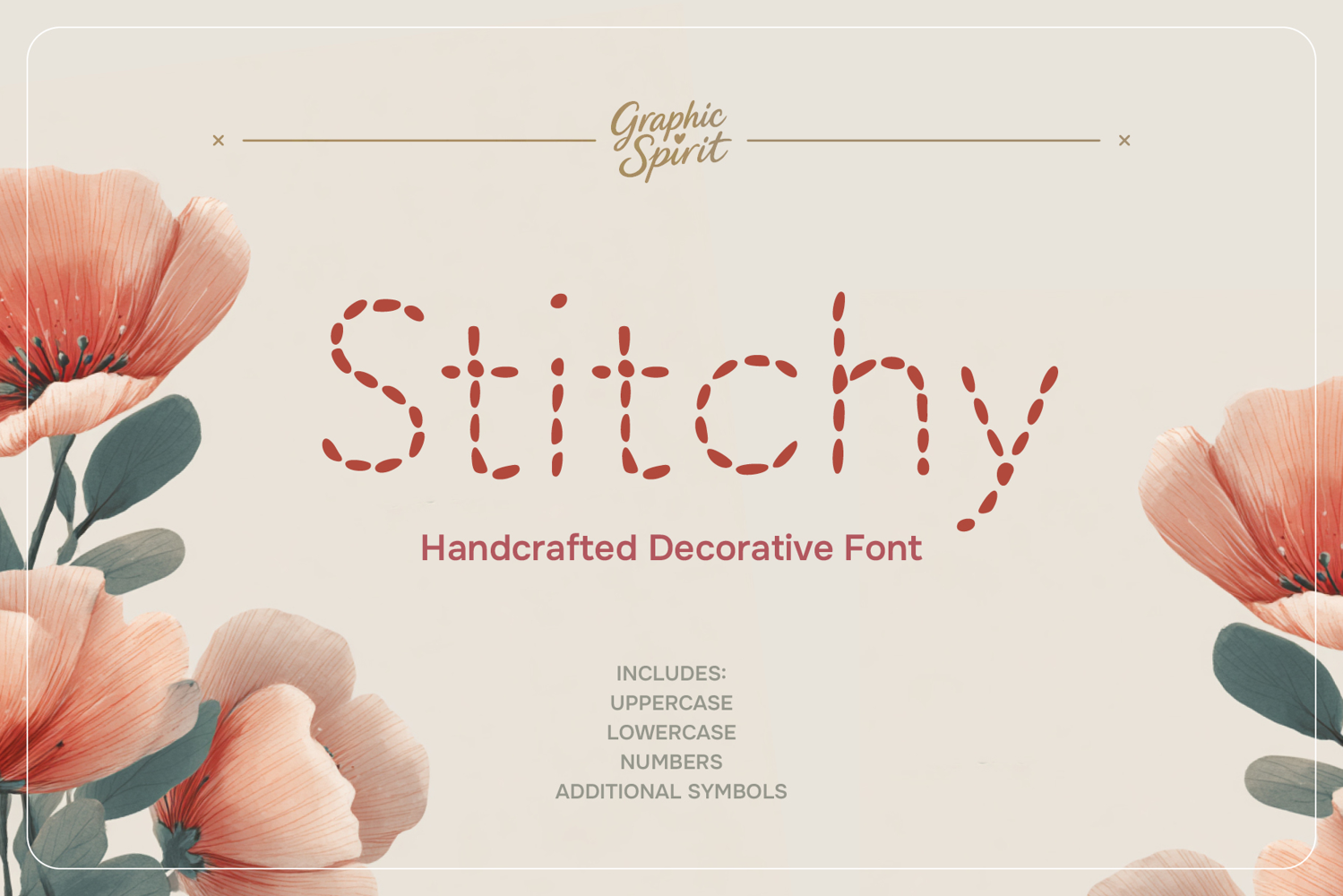
Stitchy Handcrafted Decorative Font
🧵 Elevate your handmade projects with the Stitchy decorative font! This charming digital font mimics the cozy, textured look of hand-embroidery, adding a warm and artisanal touch to all your creations. Perfect for brandin, creating heartfelt wedding invitations, or your DIY craft labels.